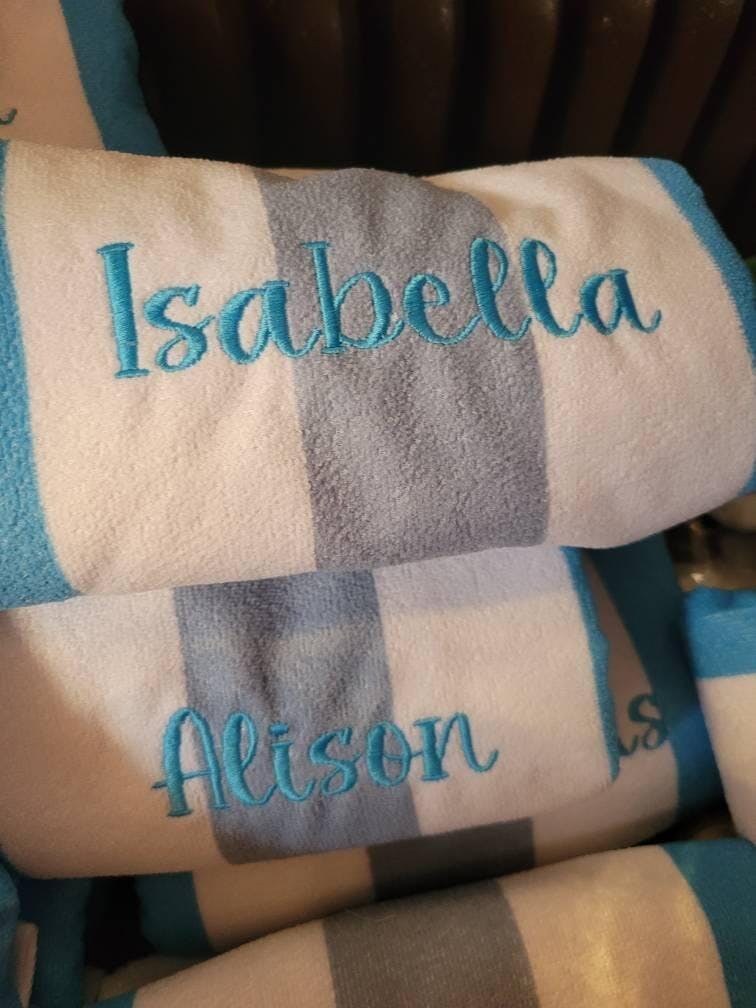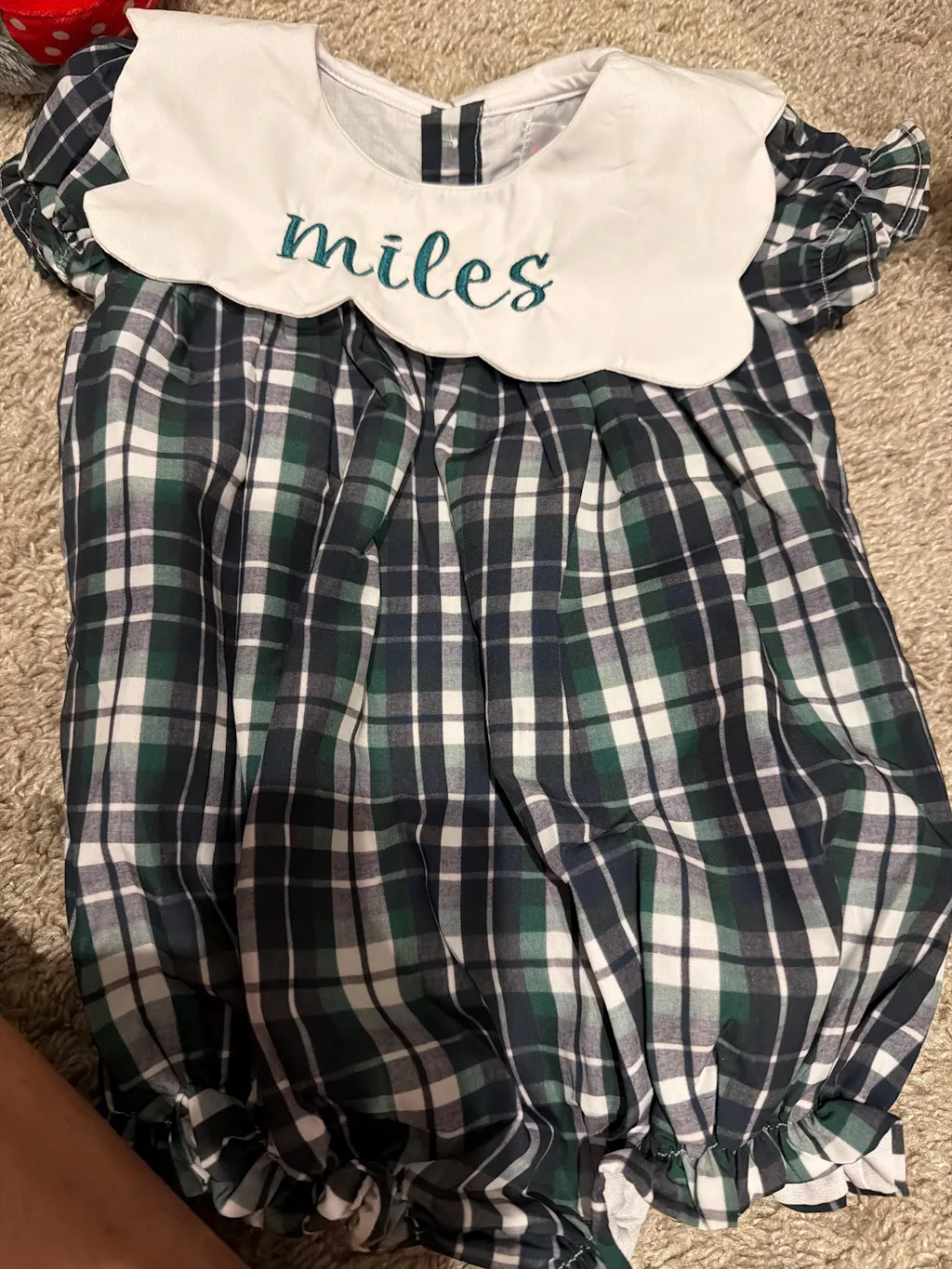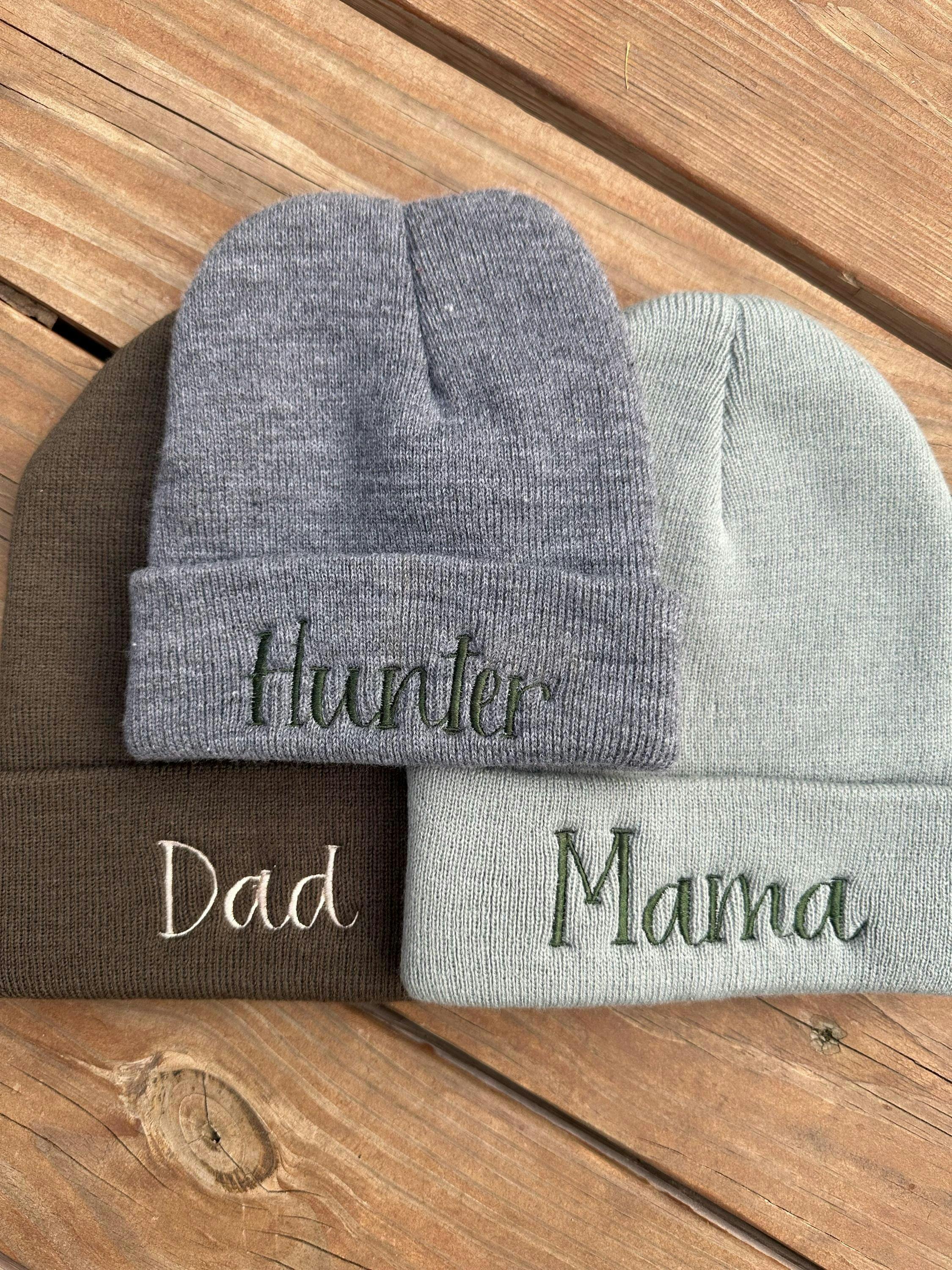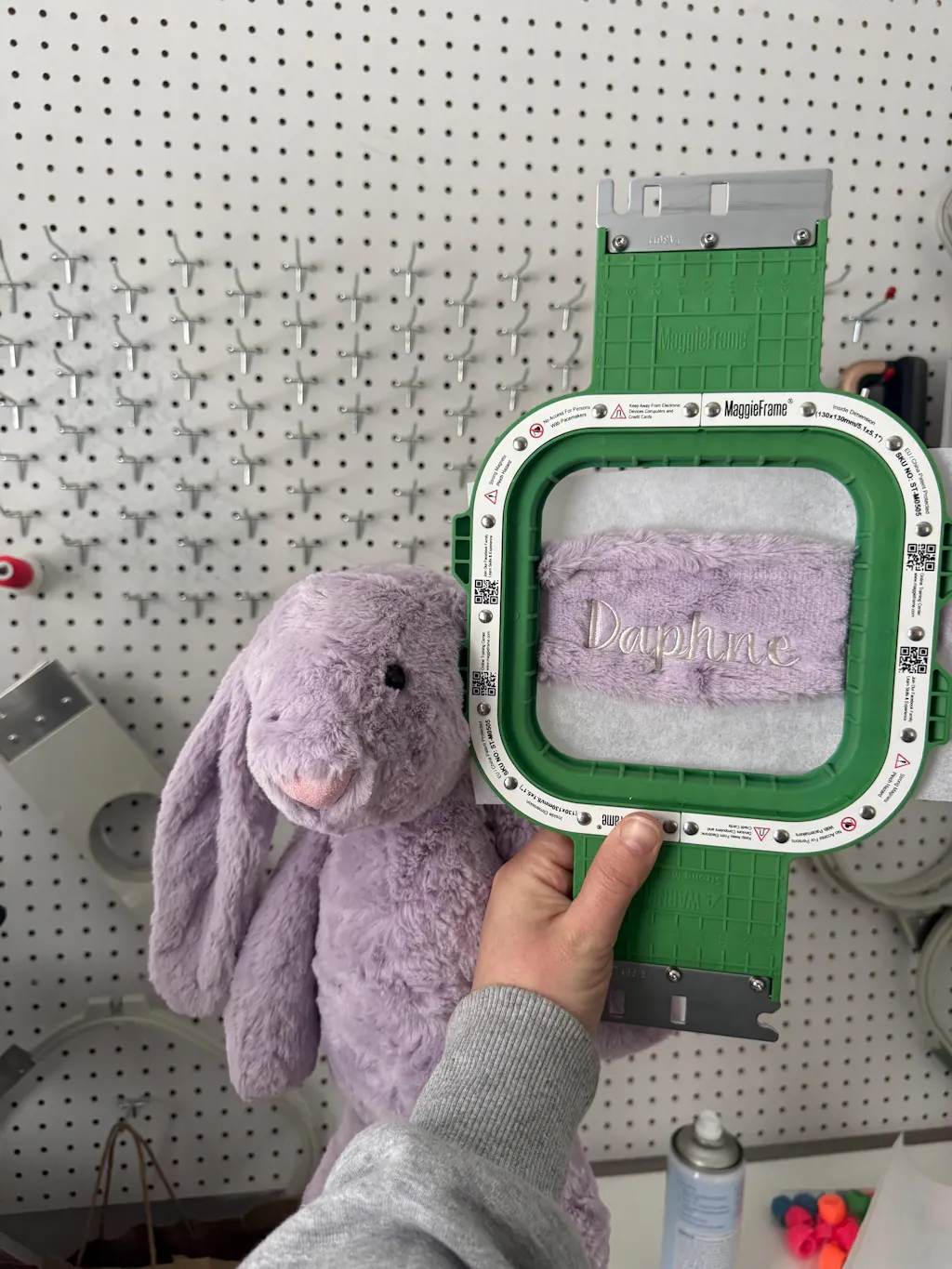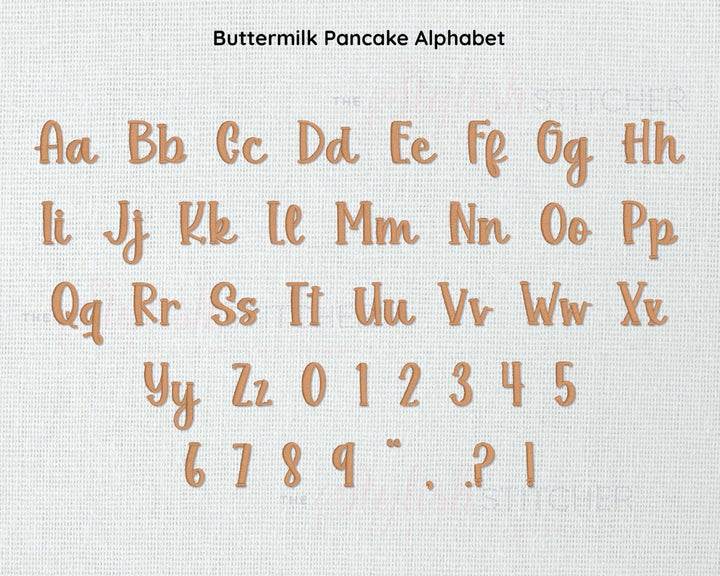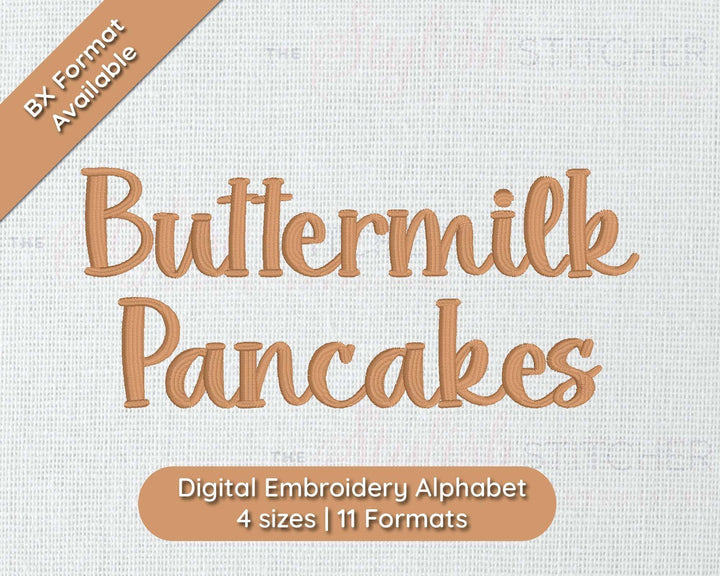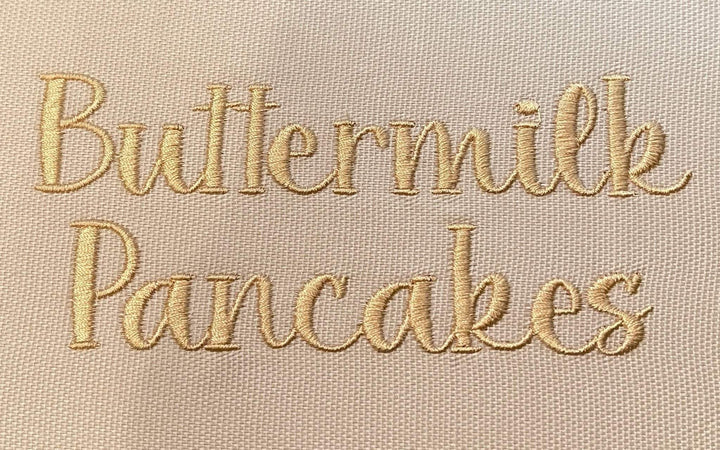
Buttermilk Pancakes Digital Embroidery Font
Discover the appeal of Buttermilk Pancakes โ your go-to machine embroidery font for a dash of classic comfort. This font serves up a stack of charm with its wholesome, hand-drawn style and delightfully rounded characters. Perfect for custom kitchen decor, cafรฉ branding, or adding a personal touch to your crafts, Buttermilk Pancakes will make every word look as warm and welcoming as the breakfast favorite it's named after. Warm up your embroidery projects with a font that's syrupy sweet and always satisfying.